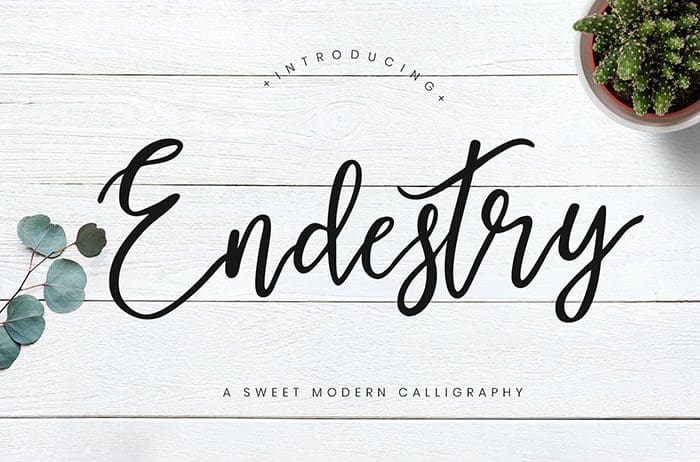
Endestry Calligraphy Font
Endestry is a sweet, flirty, bouncy, and smooth modern calligraphy font with a personal touch to make your latest project looks amazing. Thanks to Creatype Studio for sharing this font! Take a look at this portfolio for more of his stunning fonts.